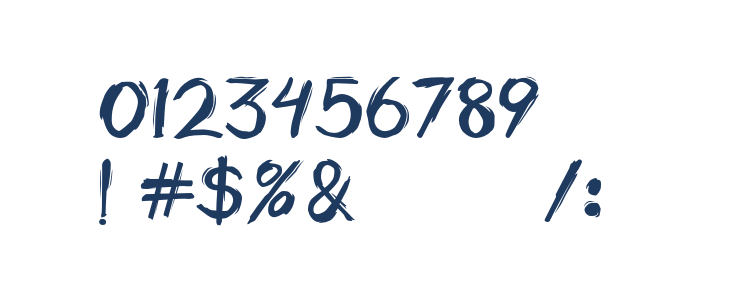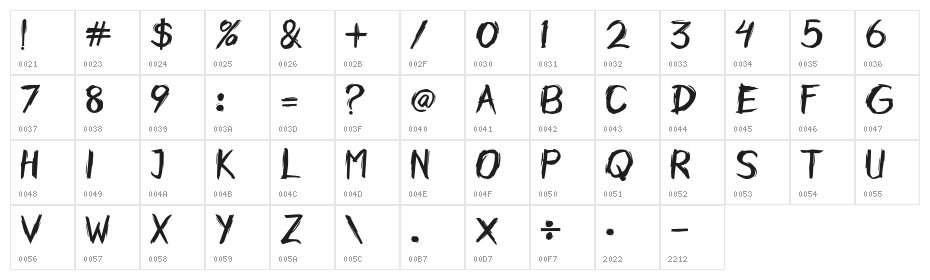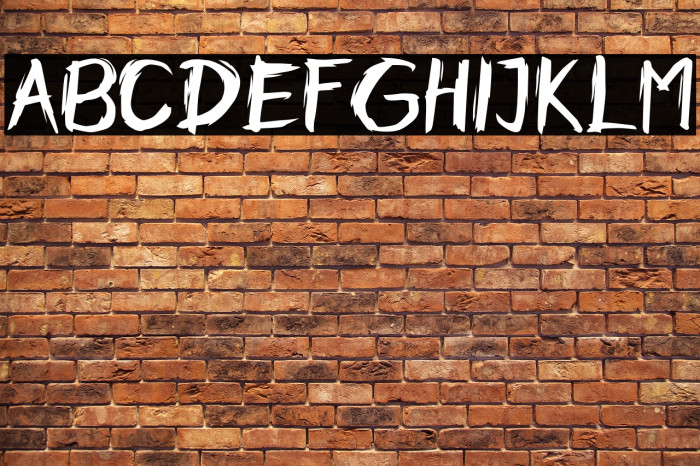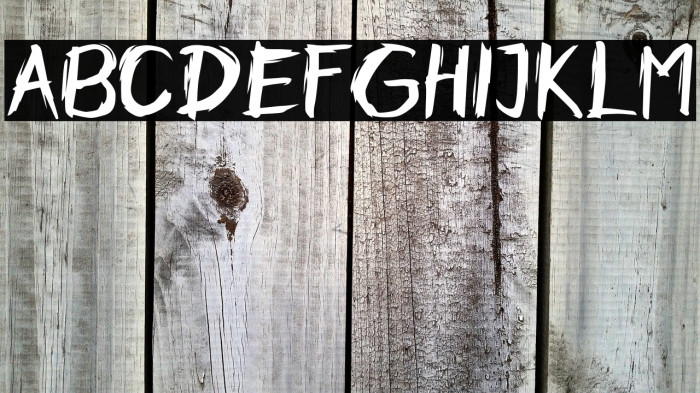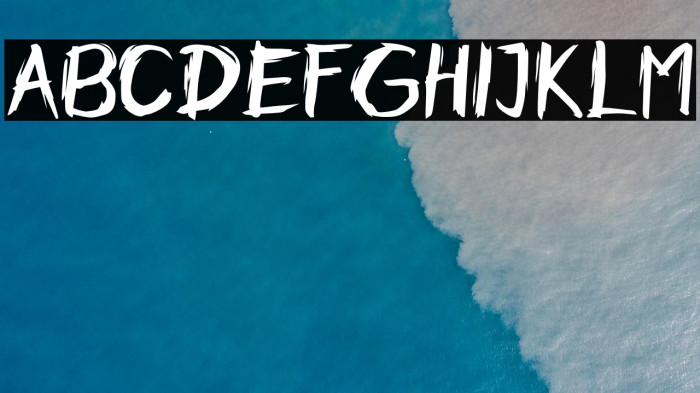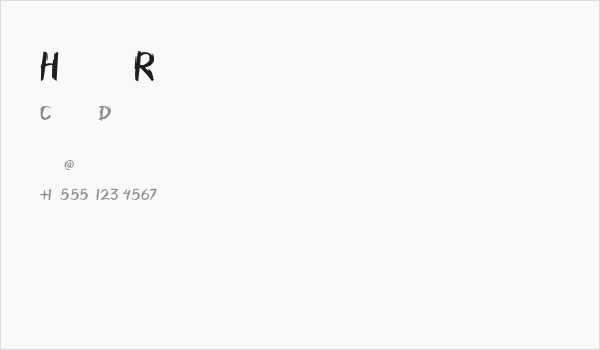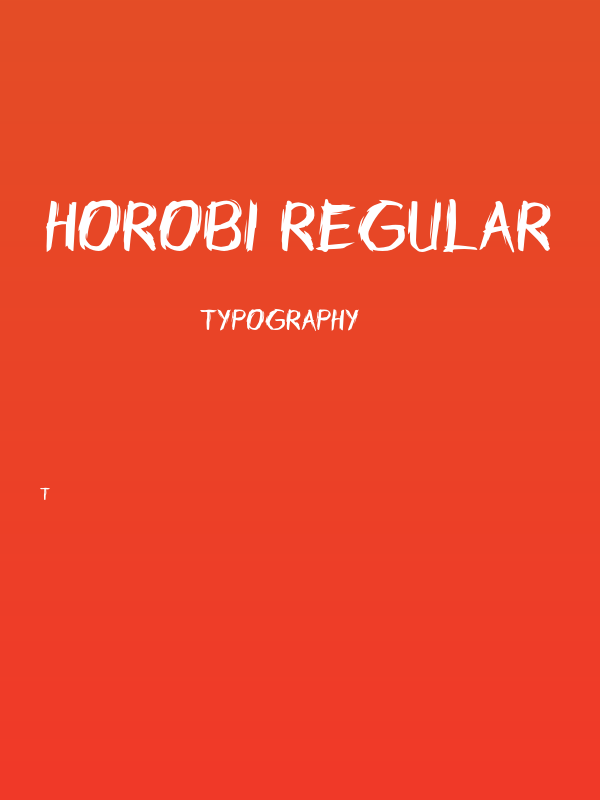
Horobi-Regular Font
Horobi-Regular Description
This font exhibits a bold and dynamic brushstroke style, characterized by its expressive and energetic appearance. The letters have a hand-drawn quality, with varying stroke thickness that adds a sense of movement and vitality. The uppercase and lowercase letters maintain a consistent style, with sharp angles and a slightly irregular baseline that enhances its artistic flair. The numerals and special characters follow the same aesthetic, ensuring a cohesive look across all elements. This font is ideal for projects that require a strong visual impact and a creative touch.
| Overall Style | Modern, Artistic |
| Proposed Projects | Ideal for posters, album covers, branding, and any creative projects that require a bold and artistic touch. |